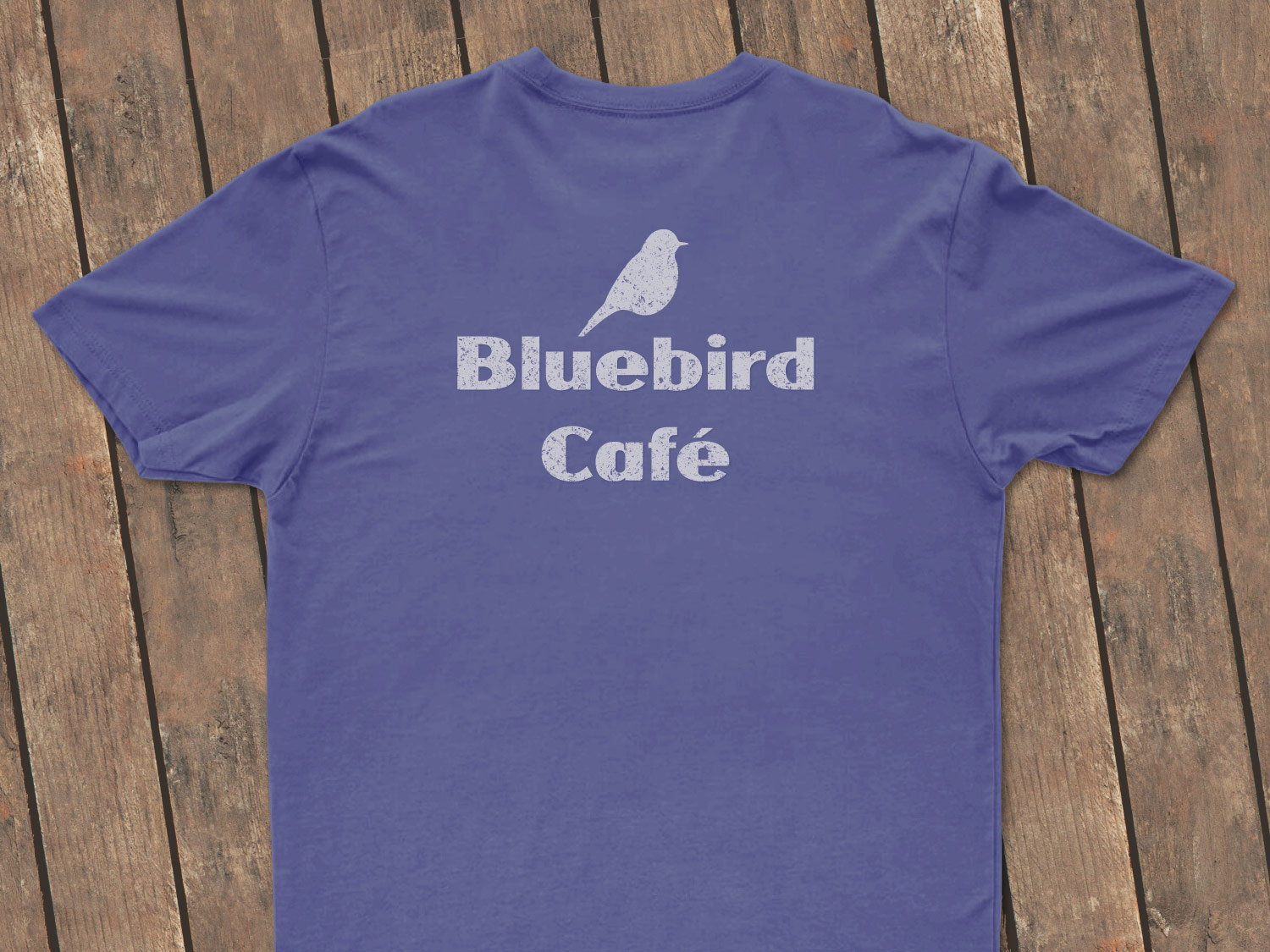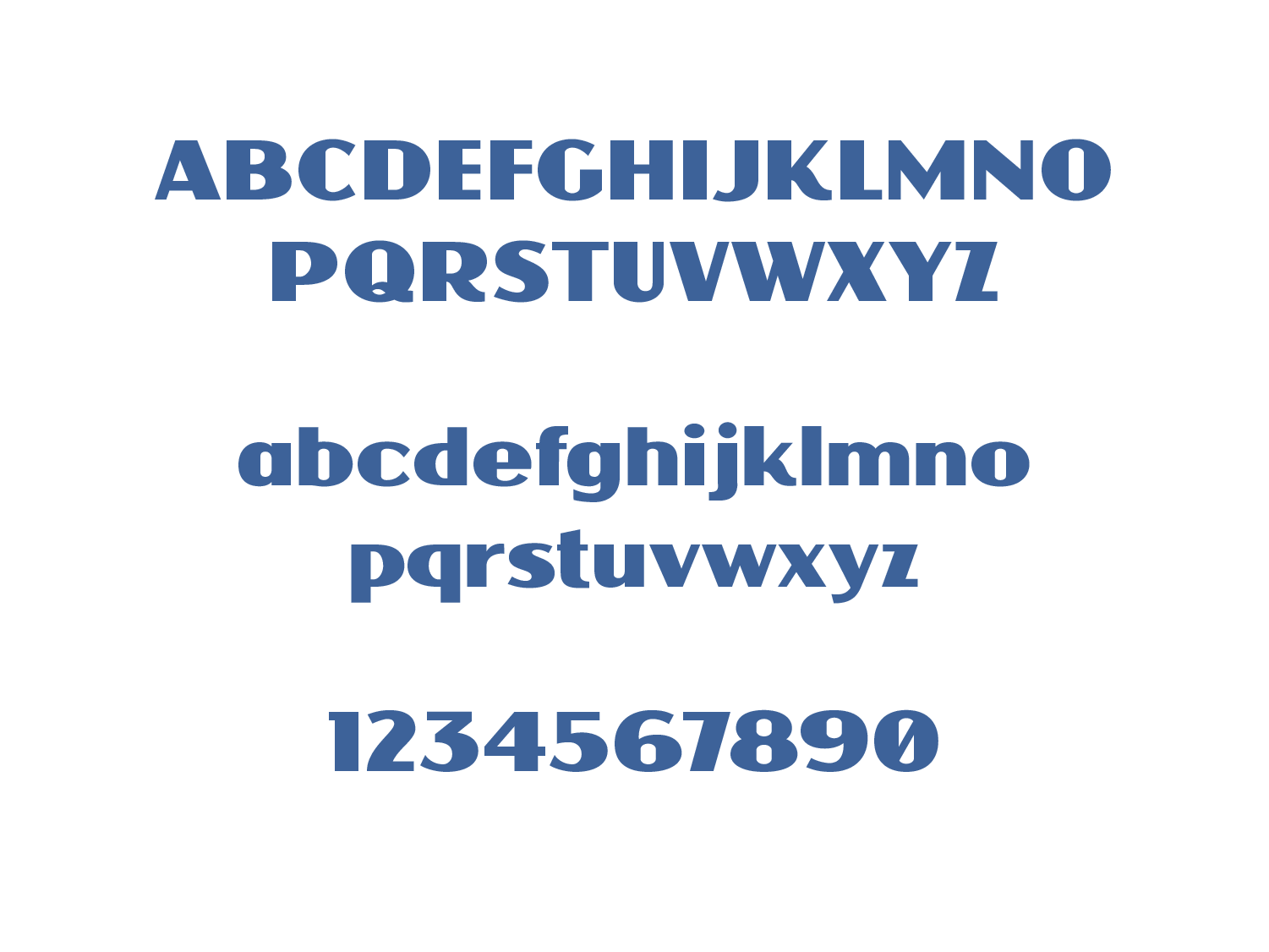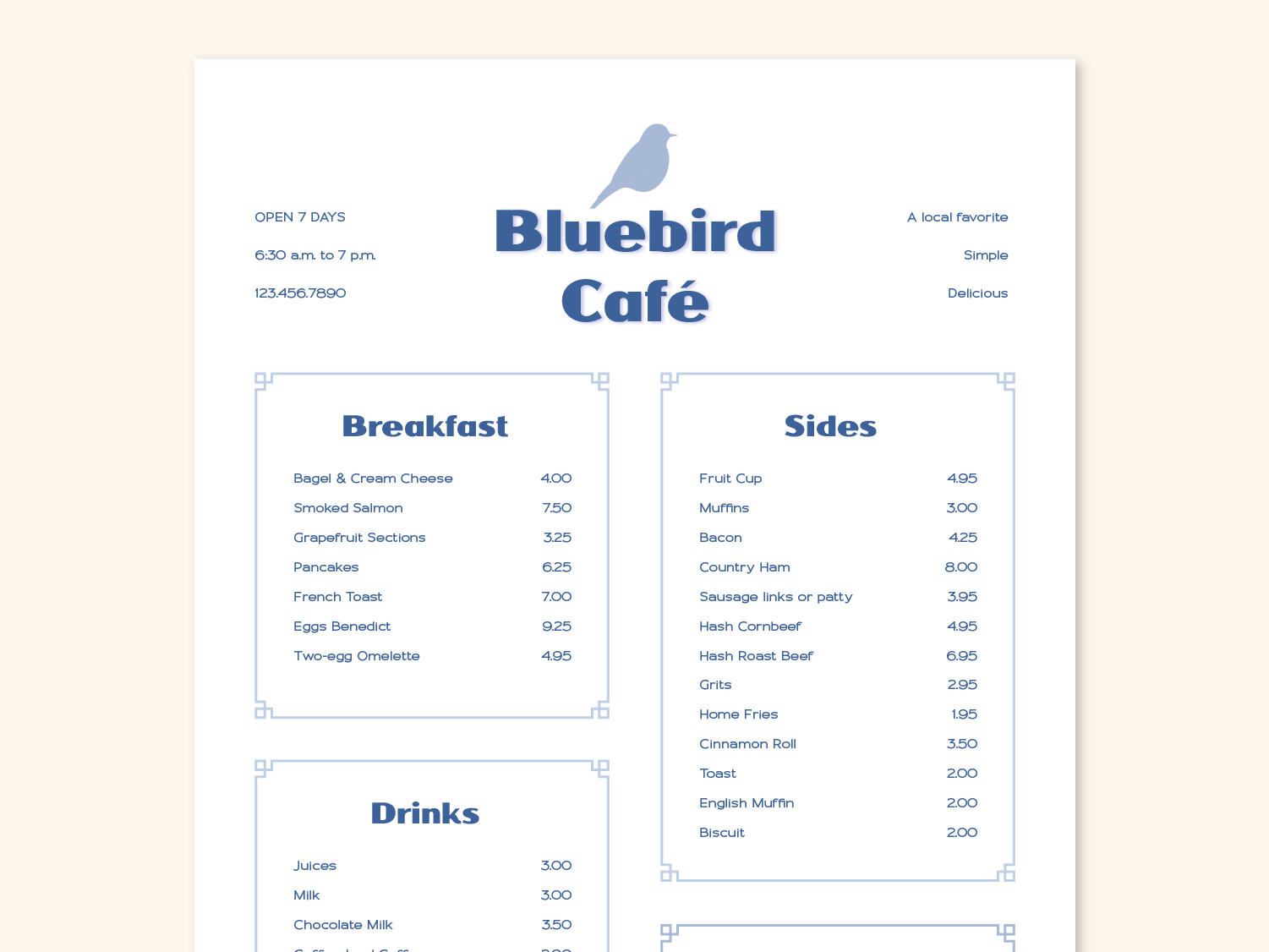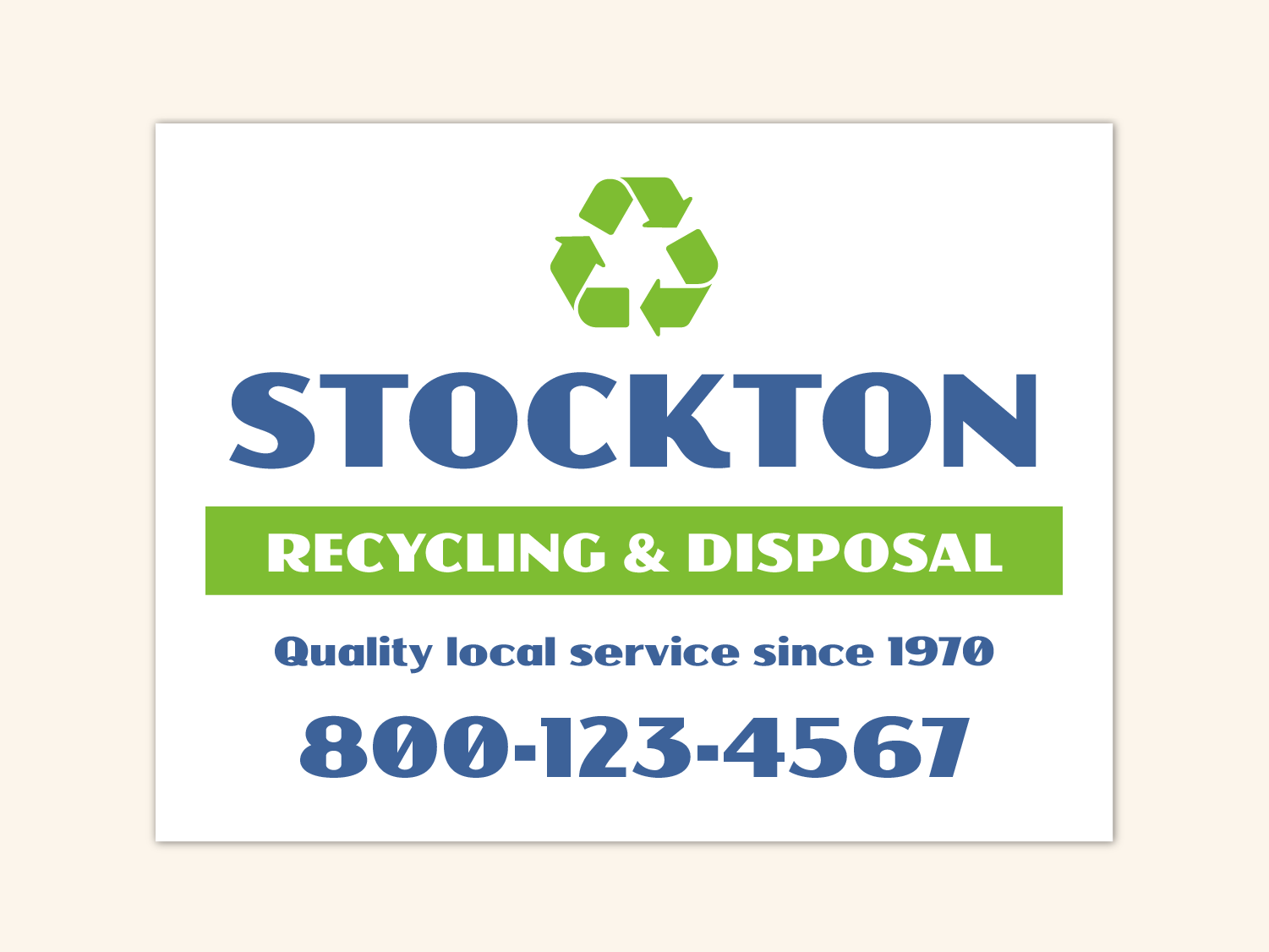
The idea for this font came from 7 letters on a 1940s travel poster featuring a retro surfer girl. It’s bold with art deco influences, and has a friendly mixture of flats and curves. It has characters from a-z and A-Z, OpenType features like ligatures and fractions, multi-lingual support, currency figures, numerals, and punctuation. Great for signs, posters, t-shirt designs, and anything needing a bit of a retro vibe.